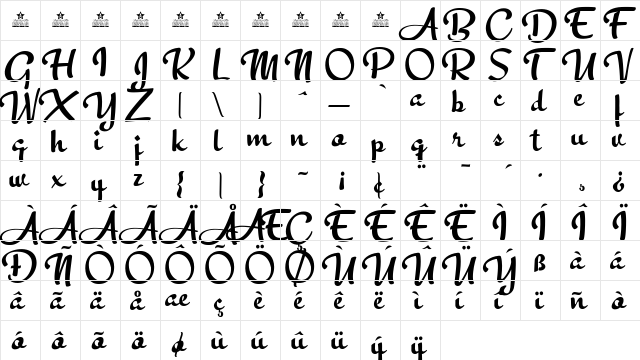
Peacemaker Regular
| Foundry | Billy Argel |
| Designer | Billy Argel |
Design Context for Peacemaker Typeface
Peacemaker is a composed and adaptable typeface that performs quietly and consistently across a wide range of design contexts.